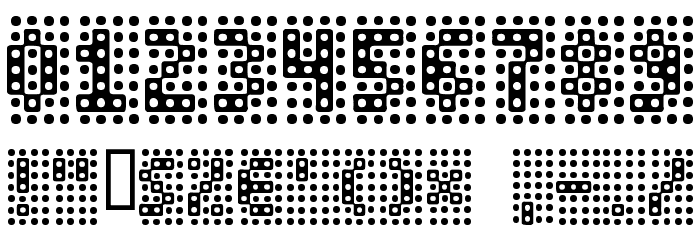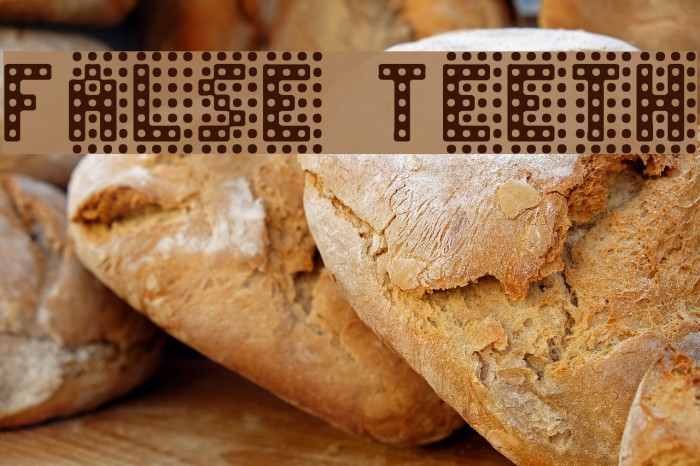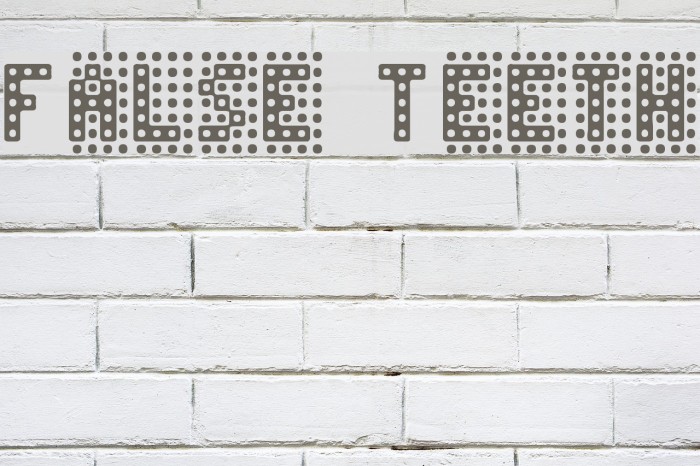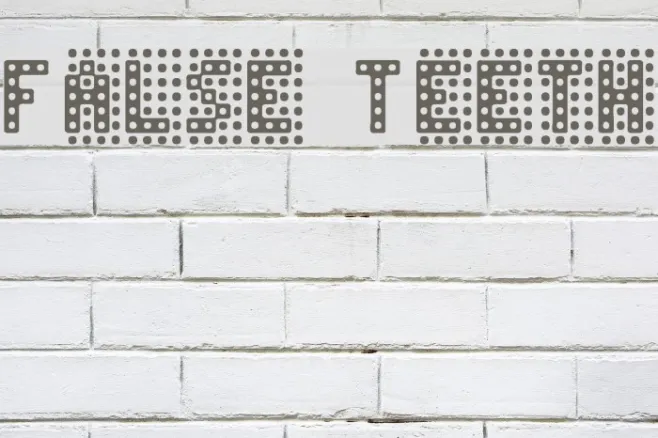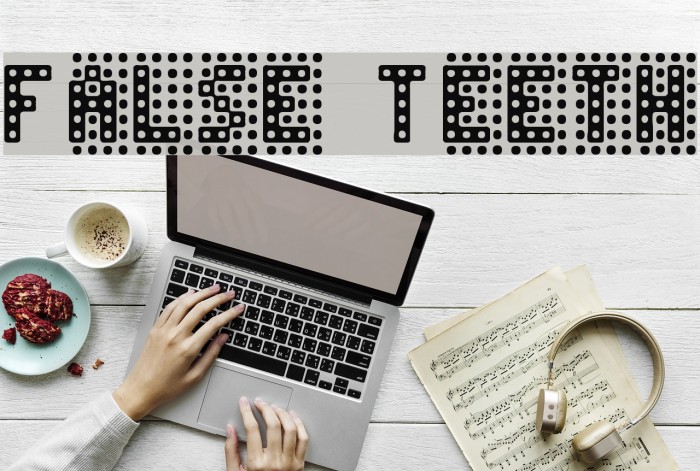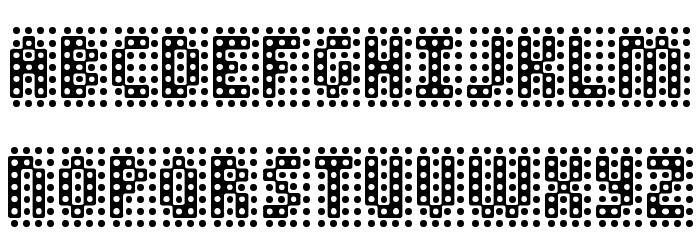
False Teeth Font
False Teeth Description
This font features a unique design where each character is constructed from a series of small, evenly spaced dots. The overall appearance is reminiscent of a digital or pixelated style, yet with a playful and decorative twist. The characters maintain a consistent height and width, creating a uniform and structured look. This font is particularly eye-catching due to its dotted pattern, which adds texture and depth to the text. The uppercase and lowercase letters, along with numbers and special characters, are all designed with the same dotted motif, ensuring a cohesive appearance across all text elements.
| Proposed Projects | Ideal for digital art projects, retro-themed designs, posters, and creative branding. |